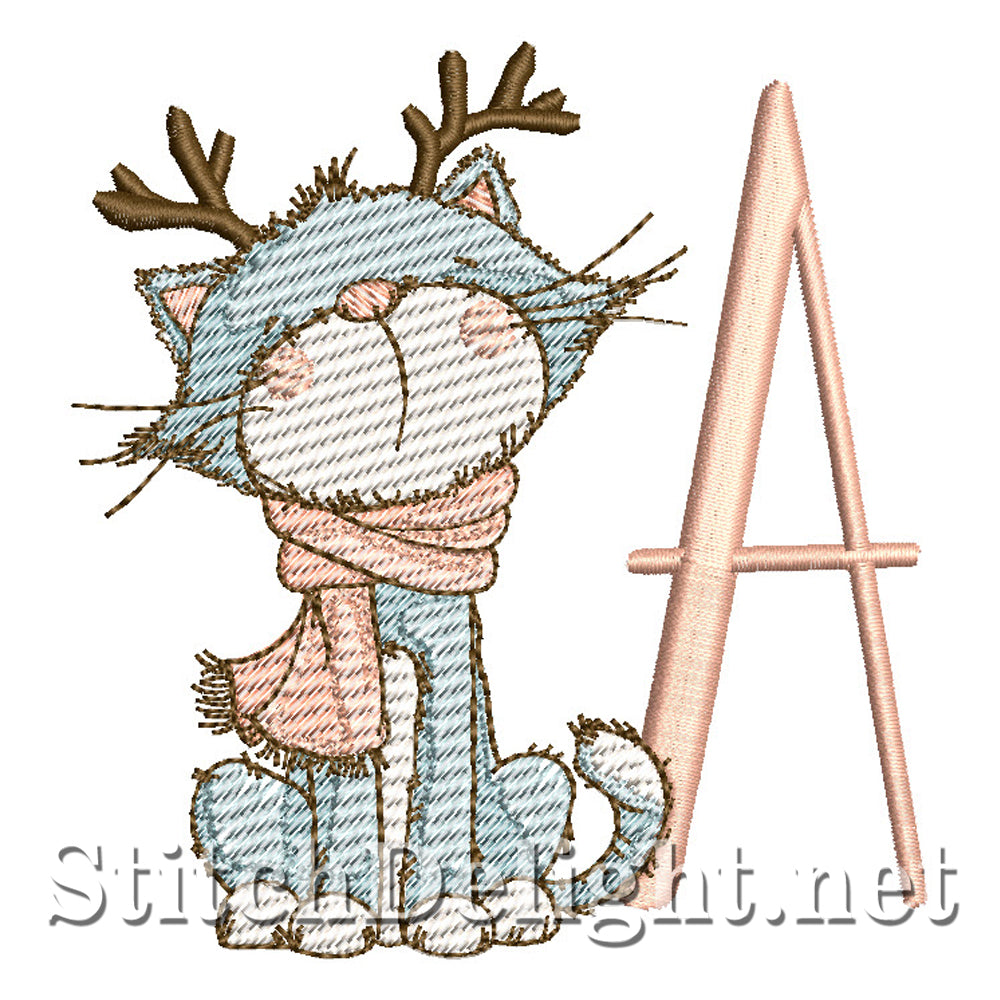
SDS4726 Purrfect Christmas Font A
December Collectors Font – A Purrfect Pick for Cat Lovers! 🐾
Say hello to our SDS4726 December Collectors Font, starring one absolutely adorable kitty who appears on all 26 letters. Each design fits beautifully in a 4x4" hoop, making it perfect for names, monograms, gift tags, festive decor, and those sweet December projects you’ve been planning.
Make your holiday stitching extra sweet this season with this delightful kitty-themed single letter.